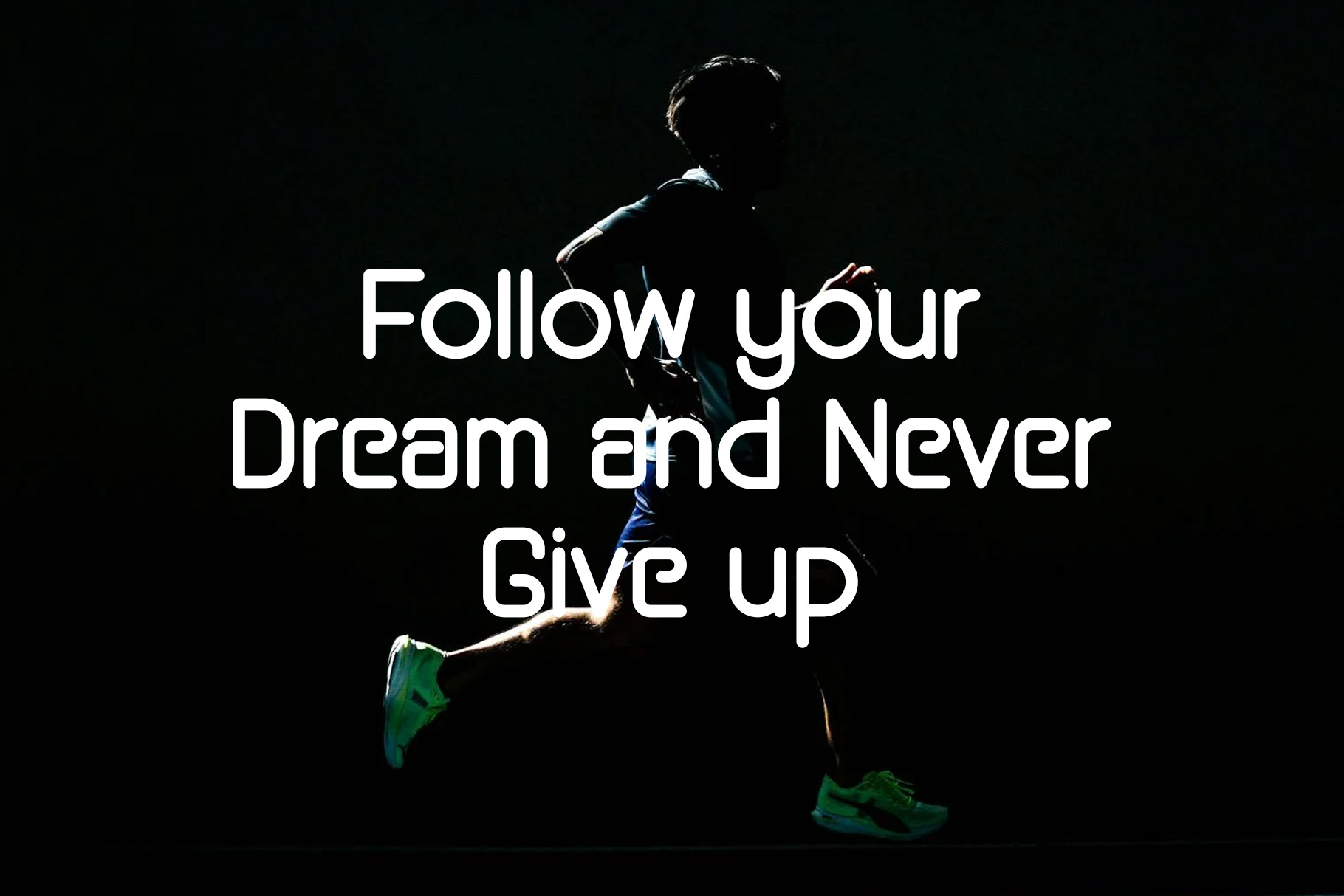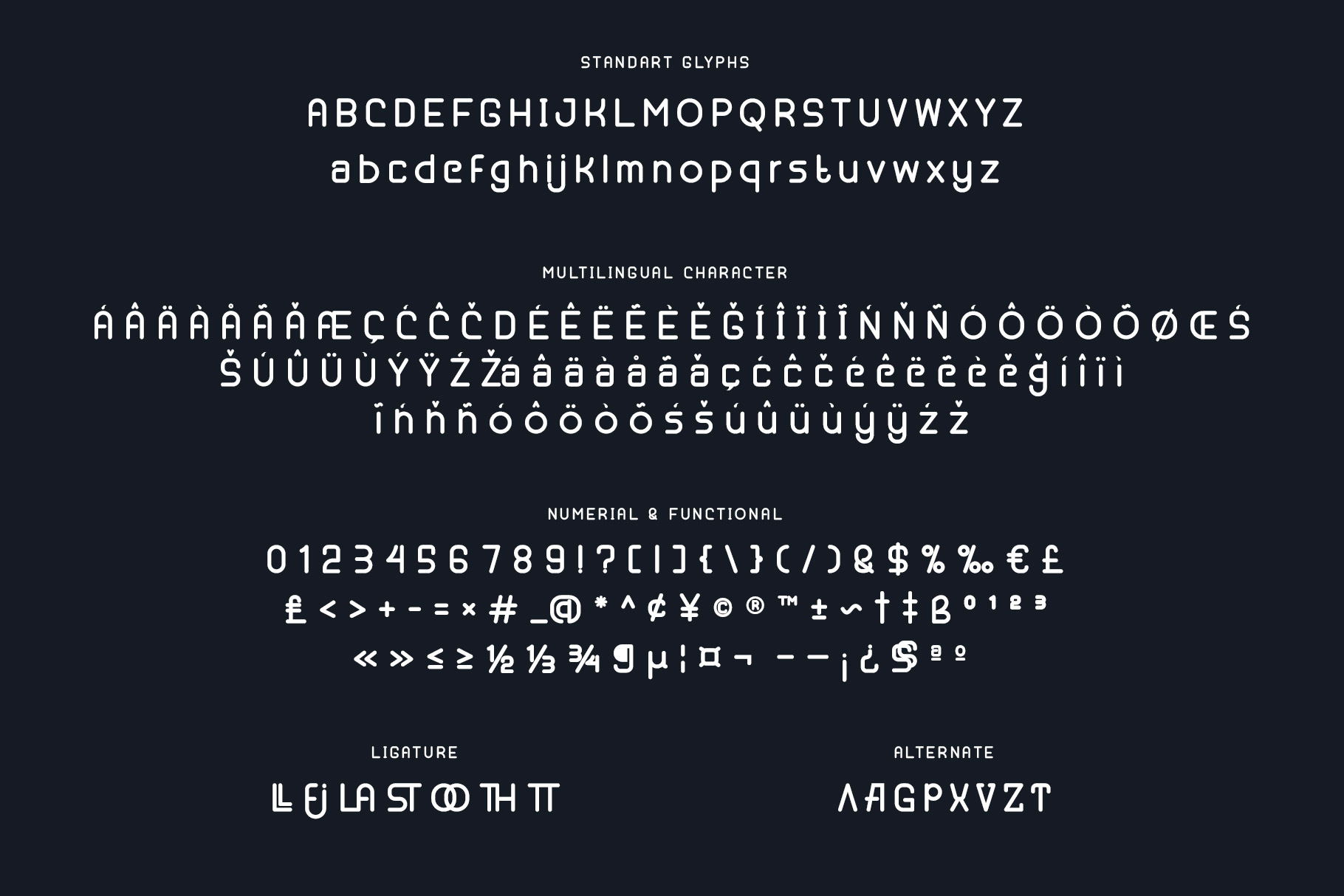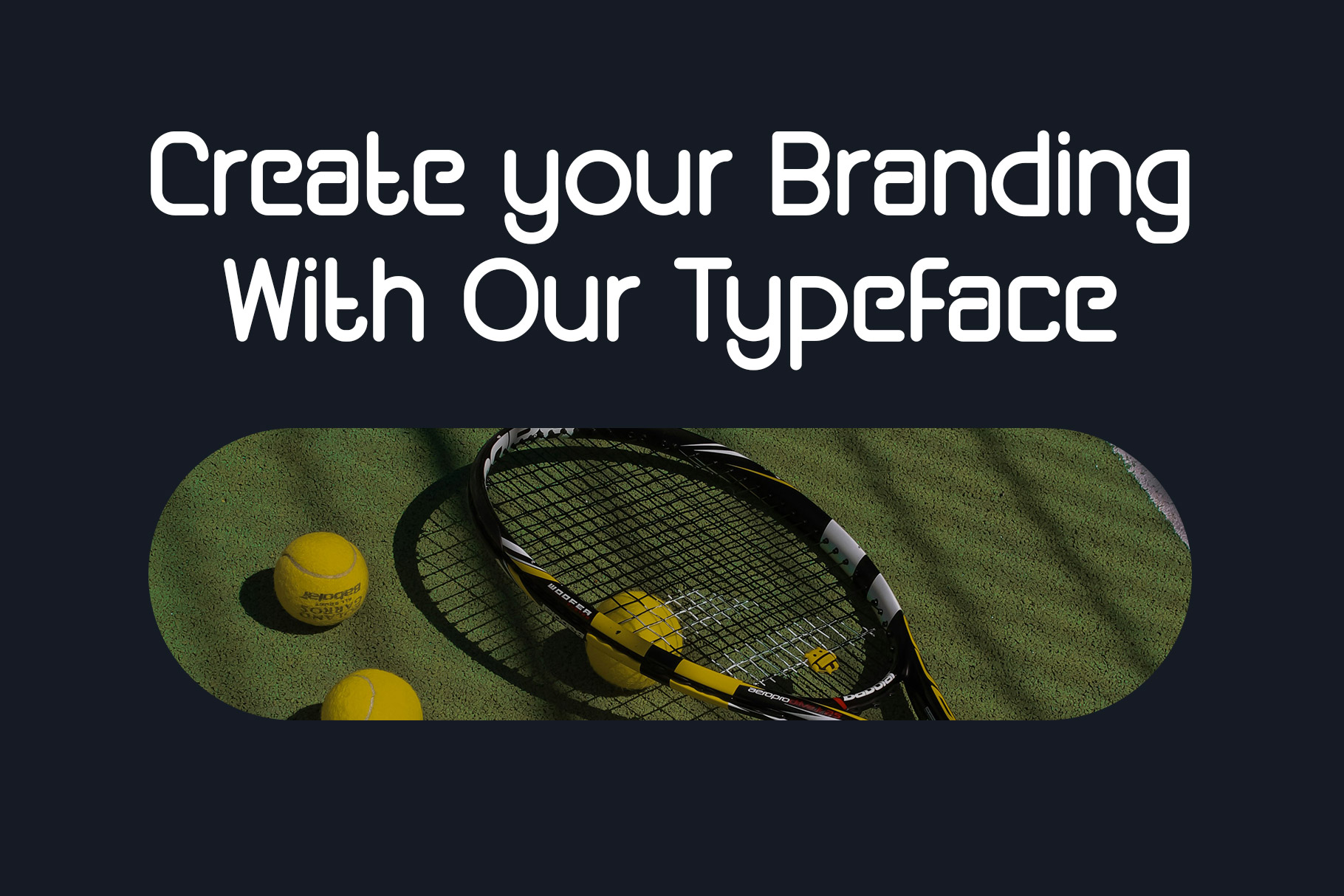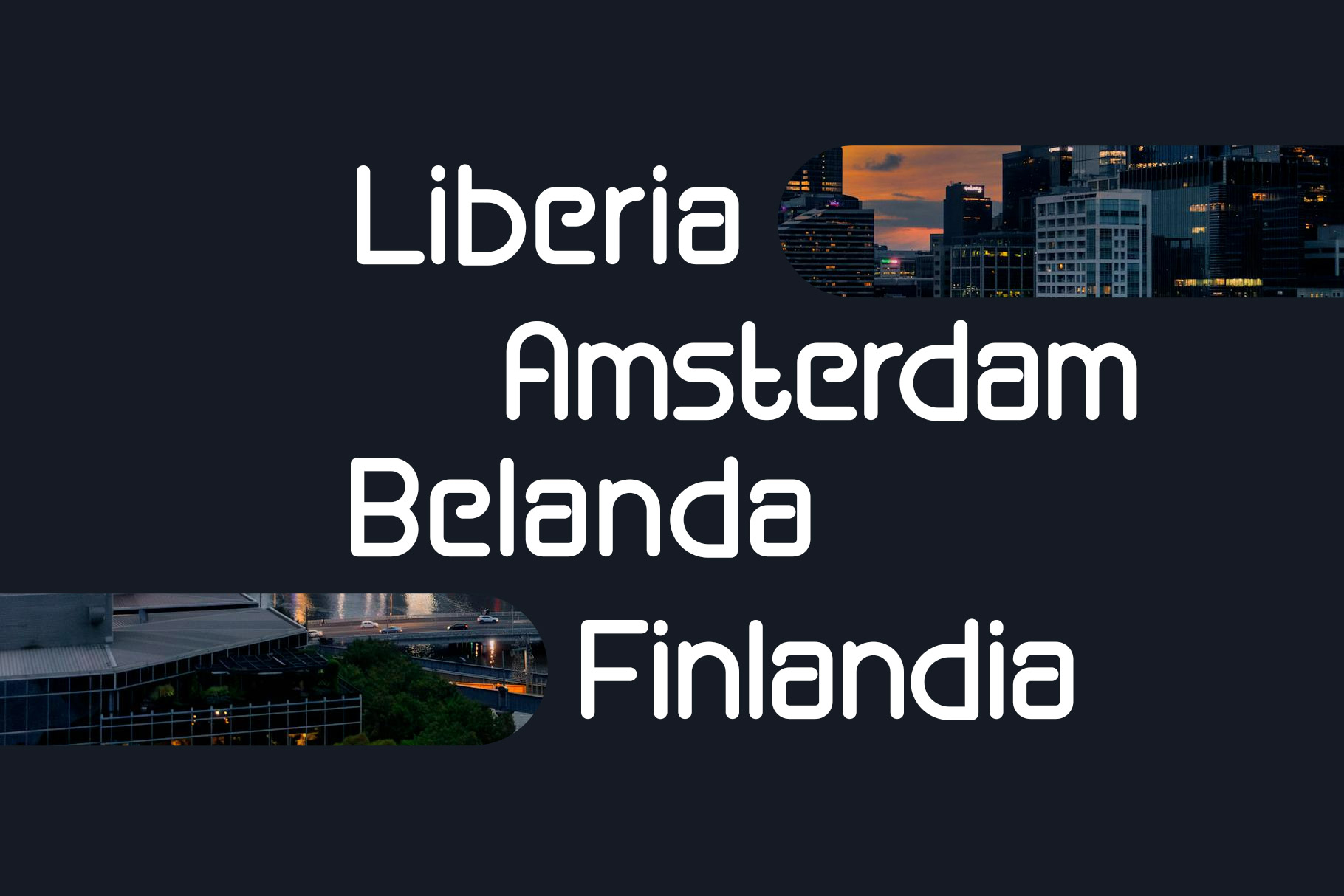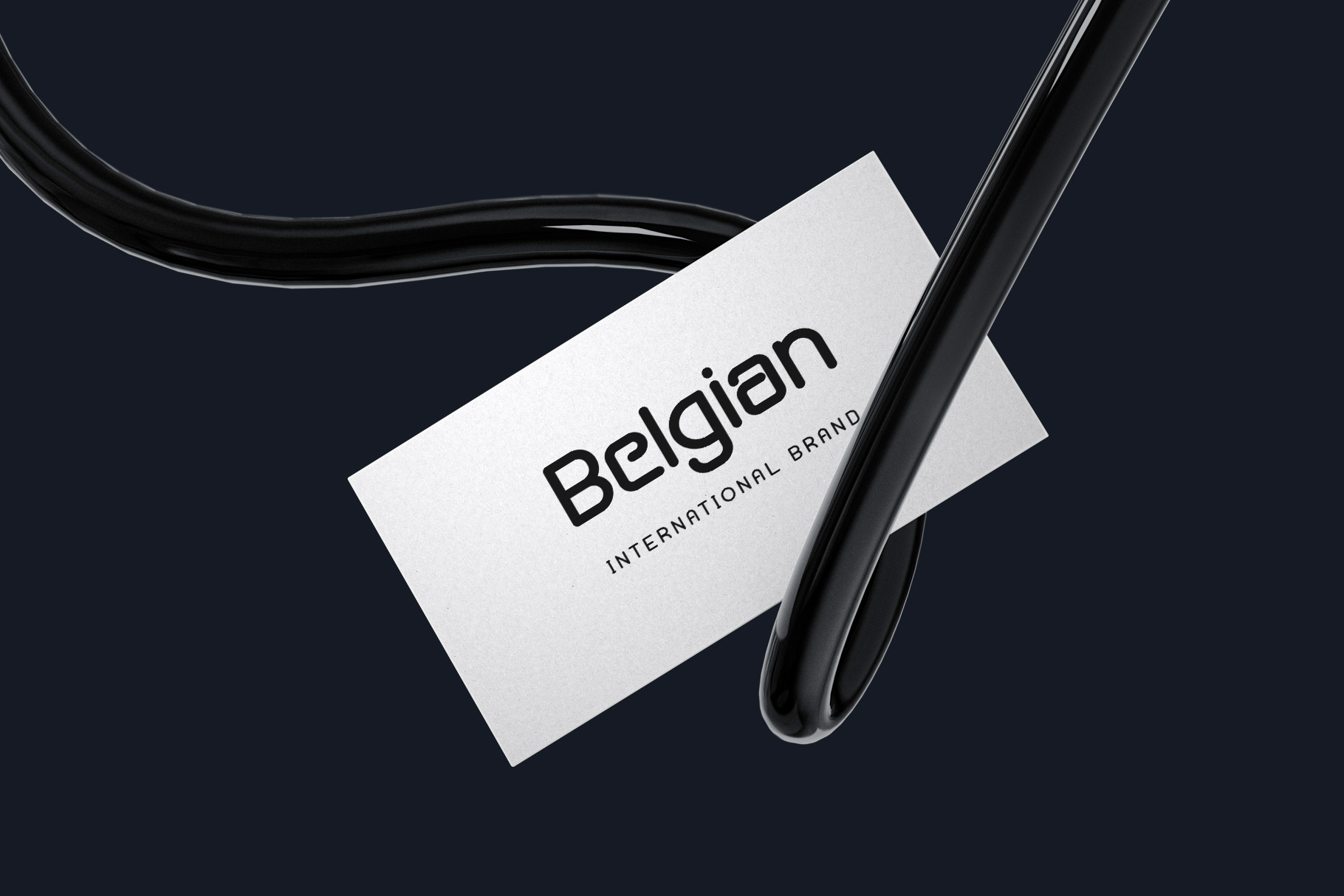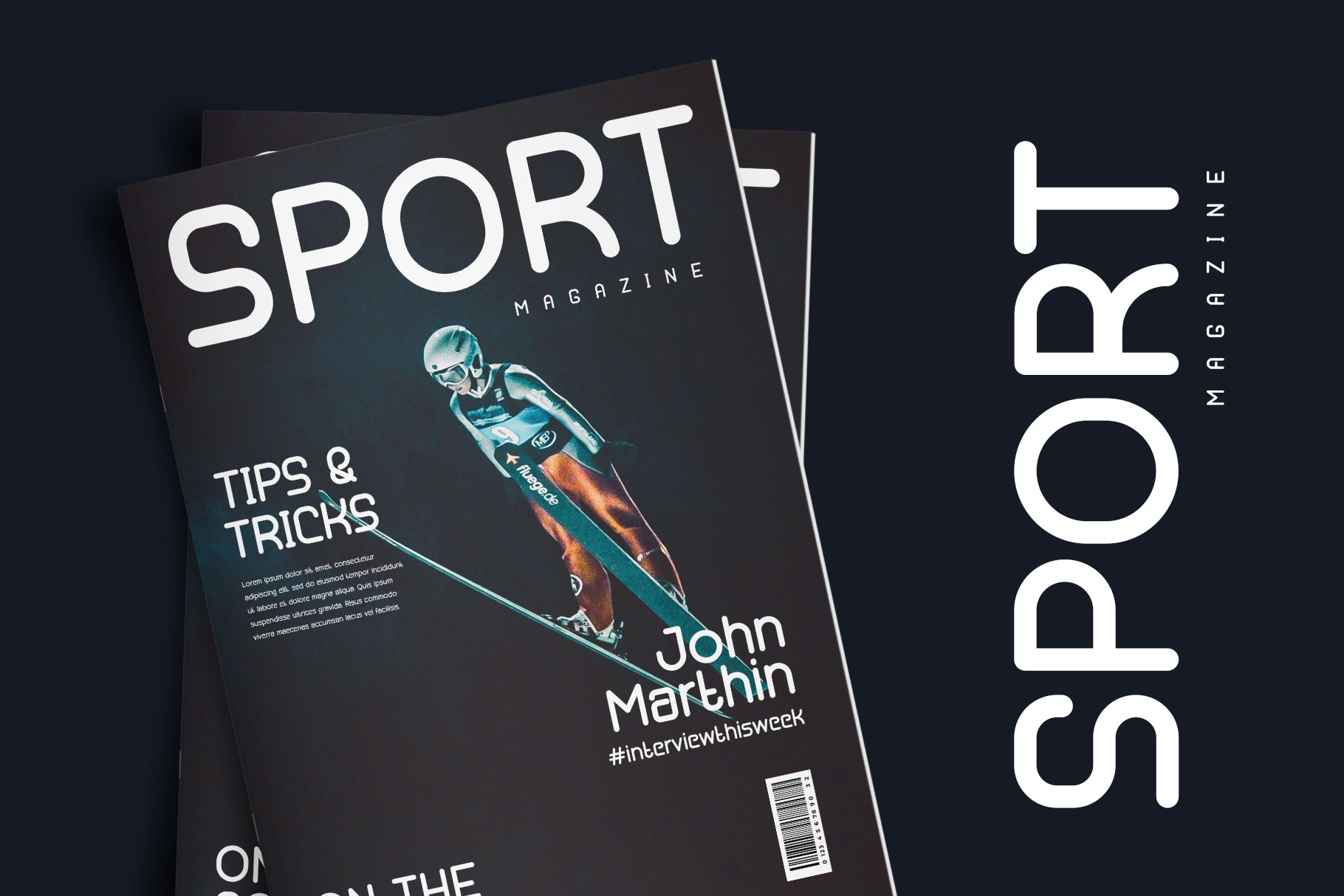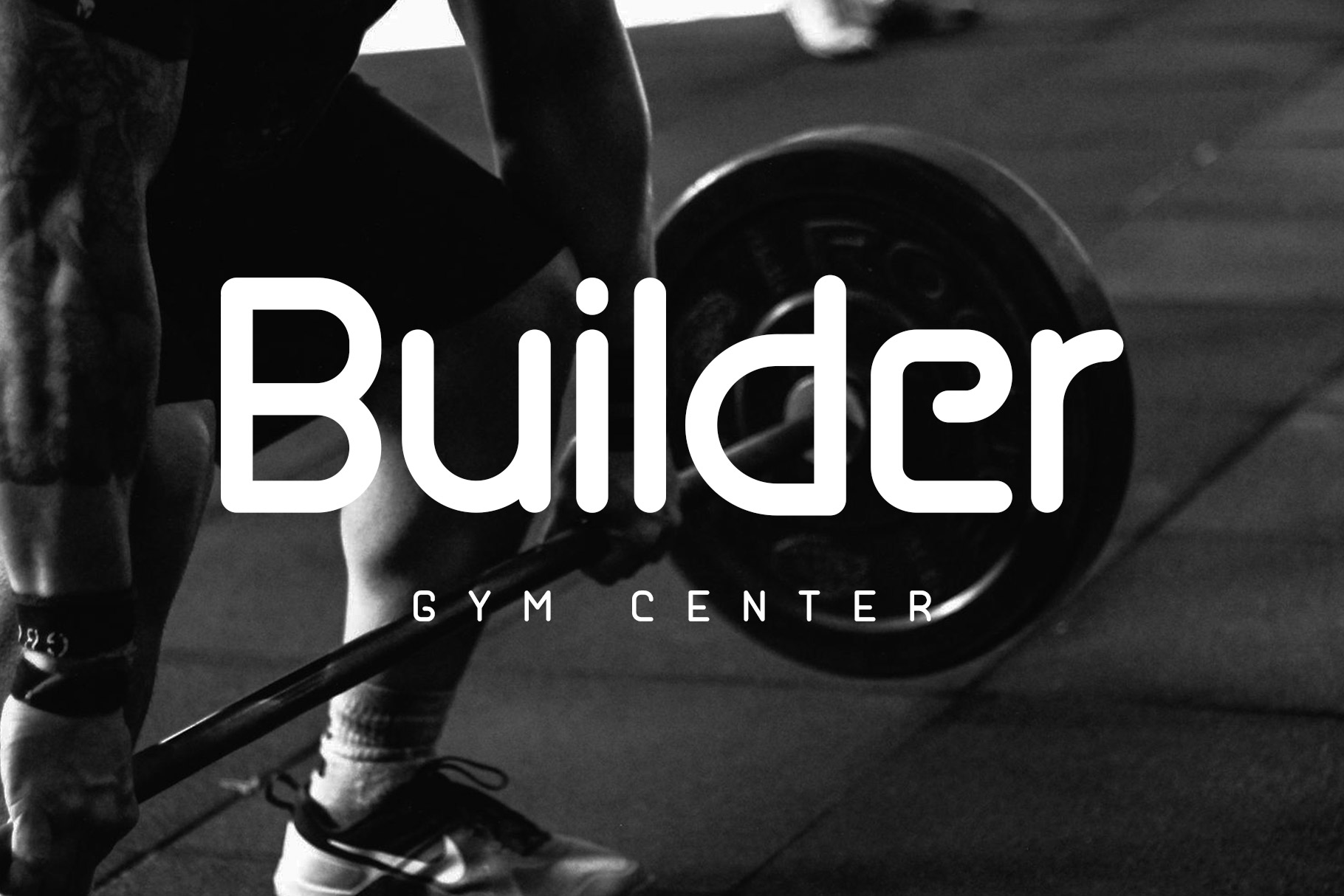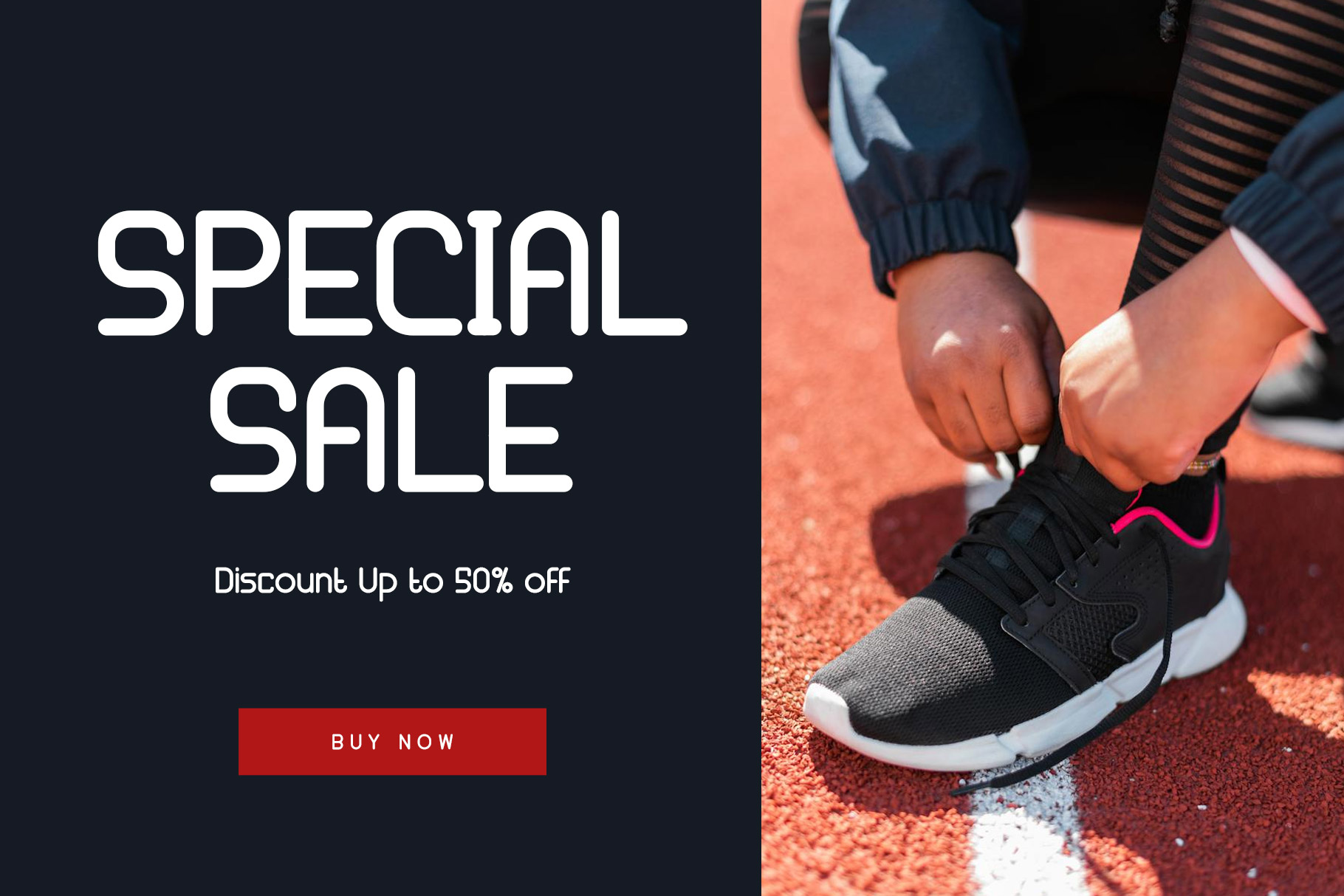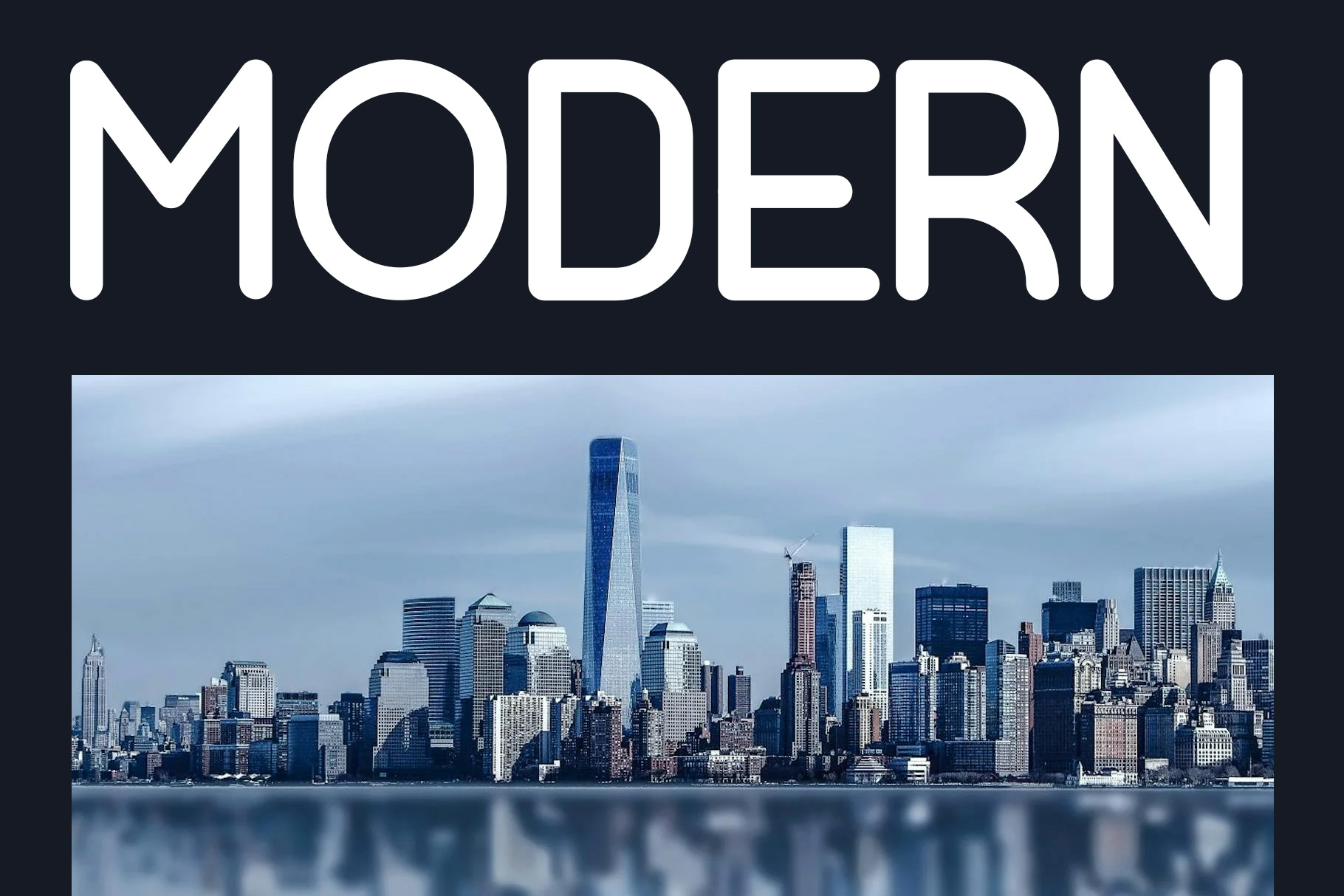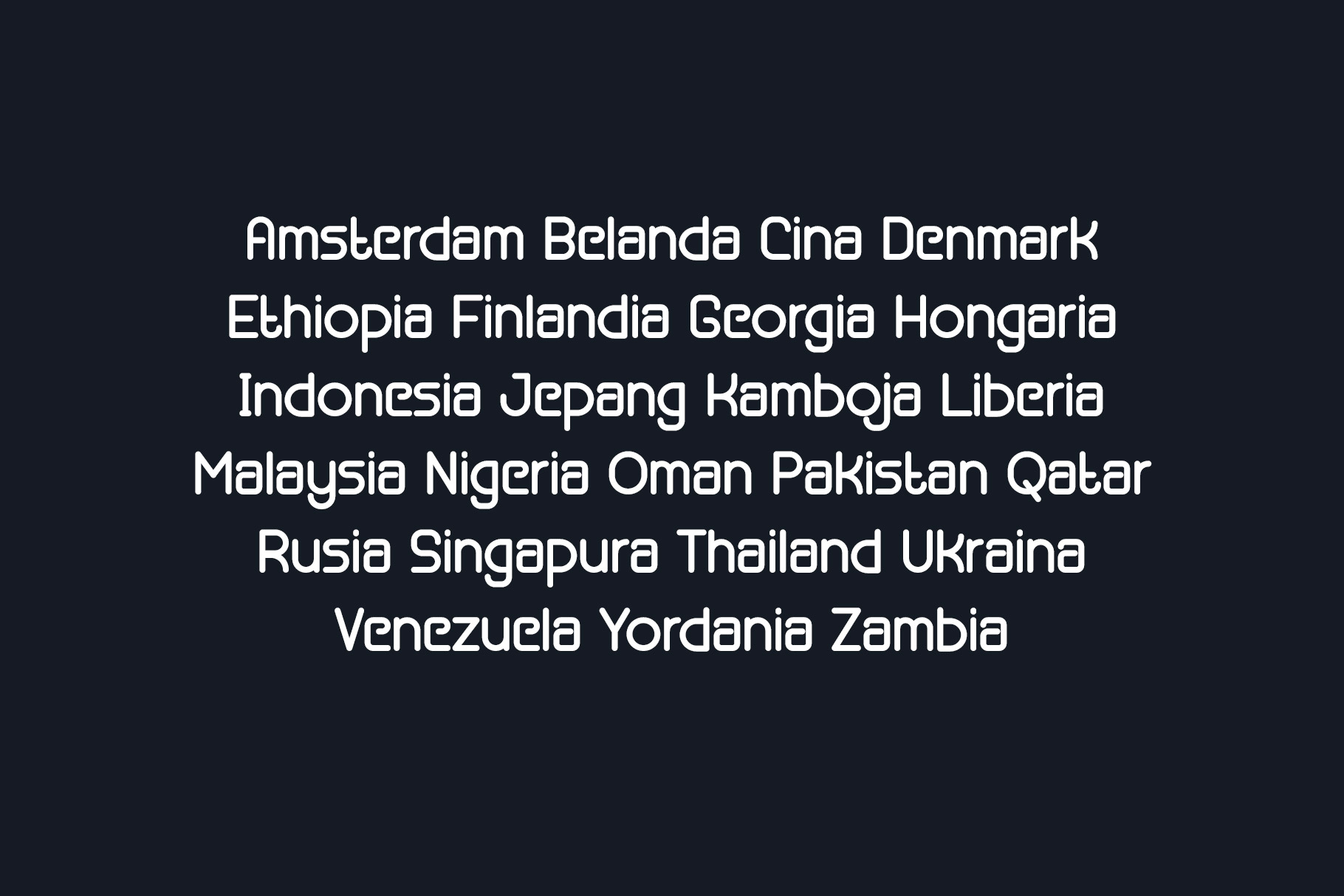
Romalio Modern Display Font
Romalio is a display font made by bilah studio with simple and attractive shape. Romalio presents a unique interpretation and simple blend of shapes to make your design projects more attractive.
Romalio is the right choice for any creative endeavor, elegant lifestyle design such as logos, advertisements, watermarks on photography, stationery, branding projects, displays and magazines, invitations, corporate branding, product design, labels, business projects, and many other projects with a simple unique touch.